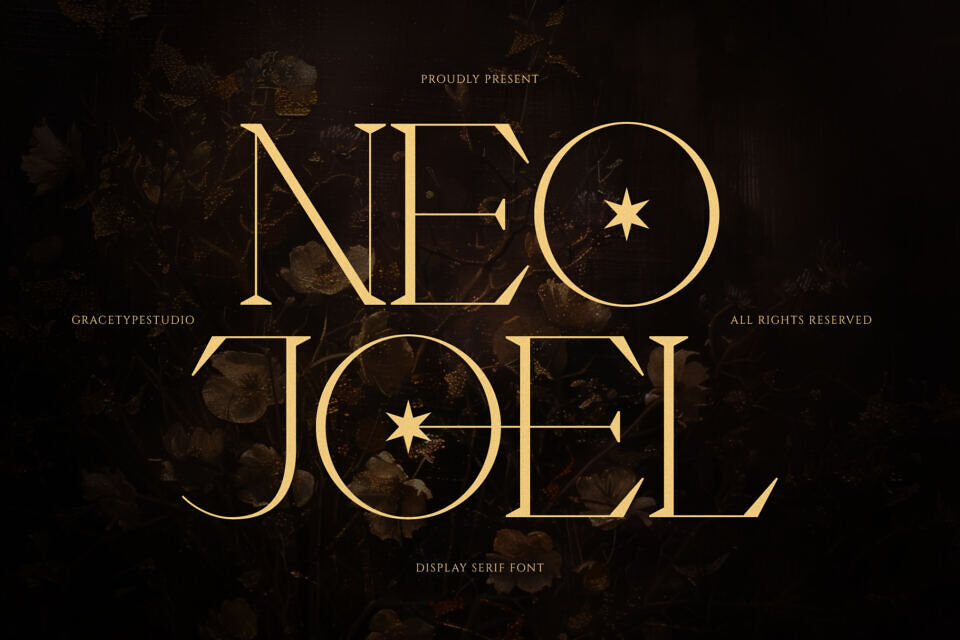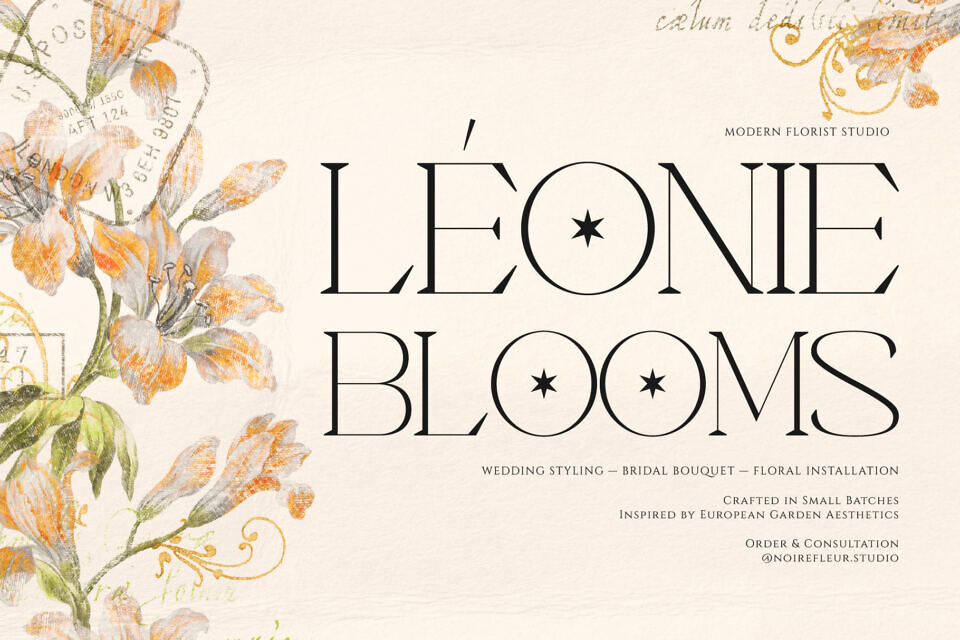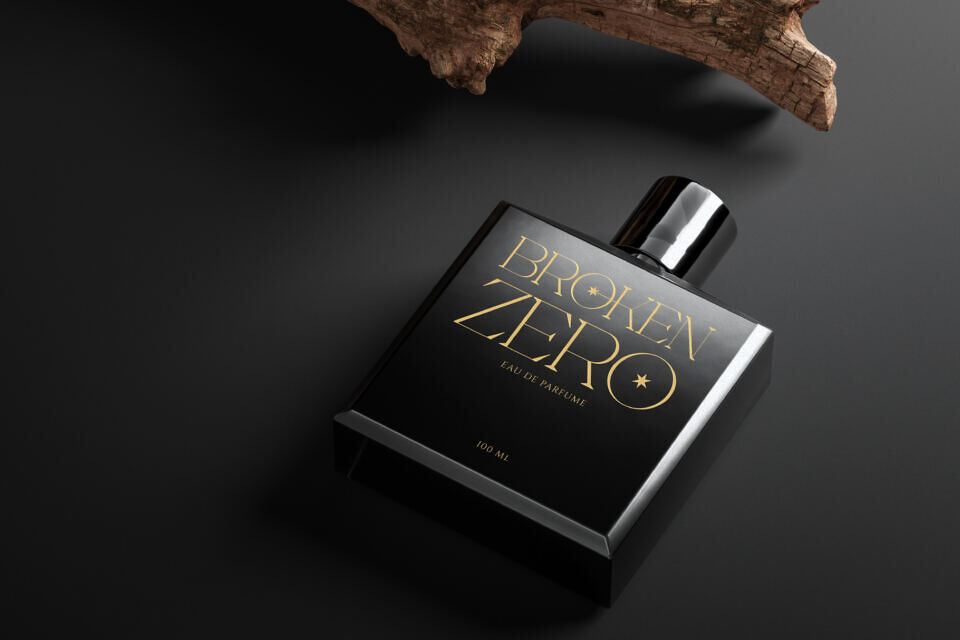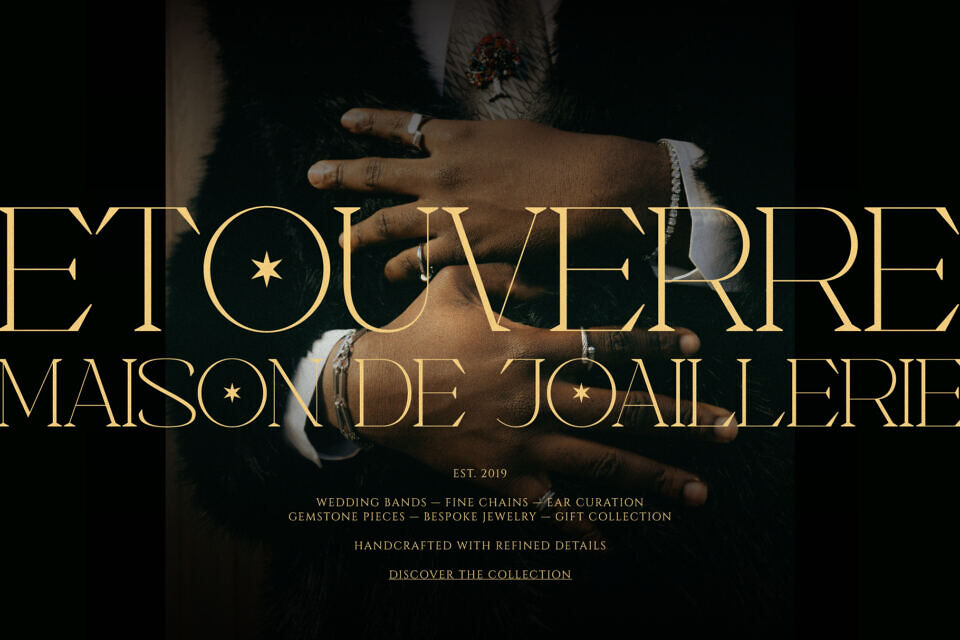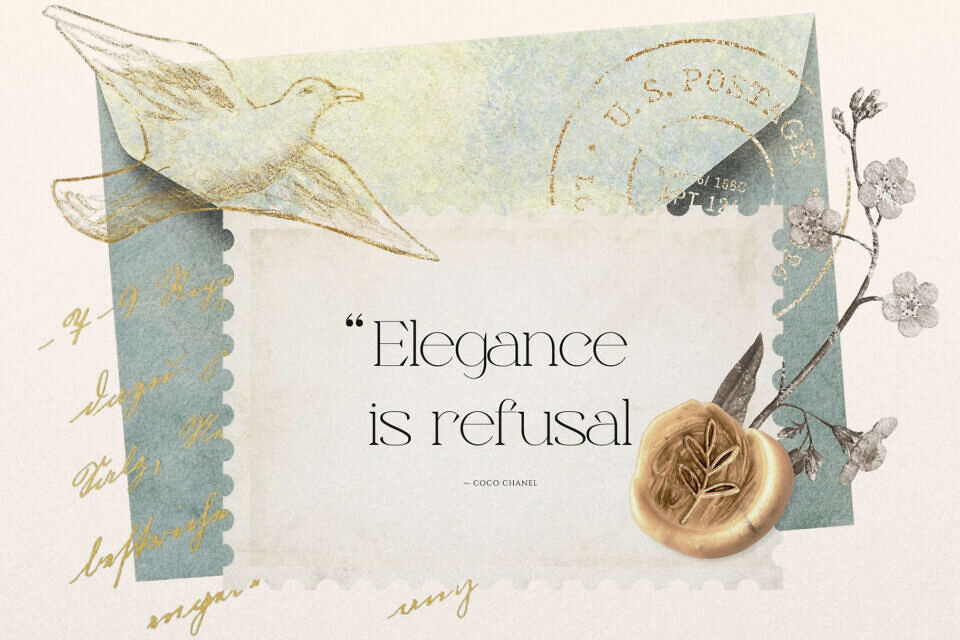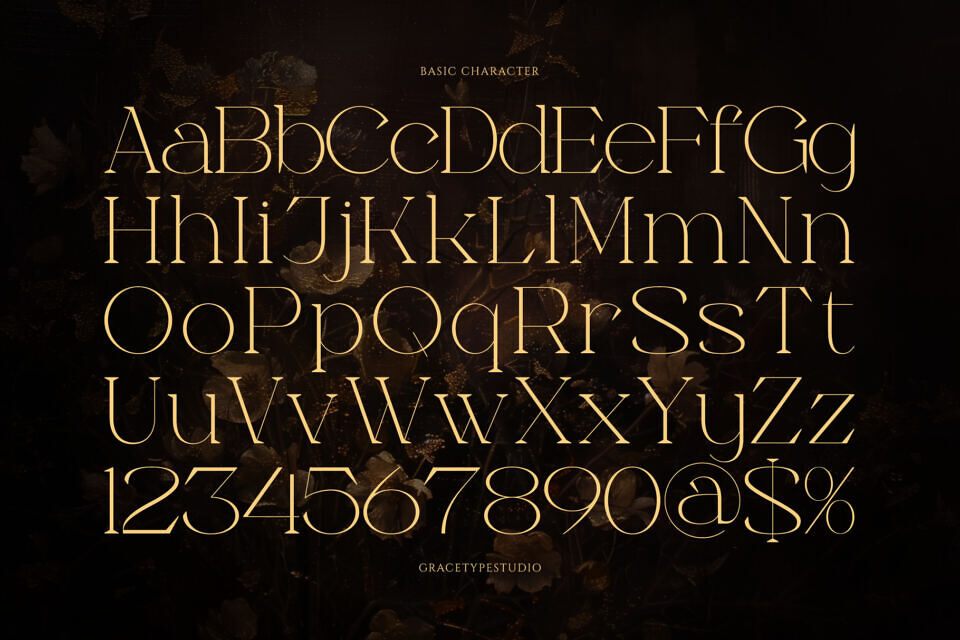
Neo Joel Font
Step into a realm of high editorial luxury and cinematic mysticism with Neo Joel, a premium display serif font. This breathtaking typeface features tall, elegant letterforms defined by razor-sharp geometric serifs and a beautiful, high-contrast play between hairline strokes and solid stems.
Neo Joel is an exceptional match for upscale cosmetics packaging, boutique hotel identities, fantasy film title headers, luxury jewellery branding, and fine editorial layout designs.